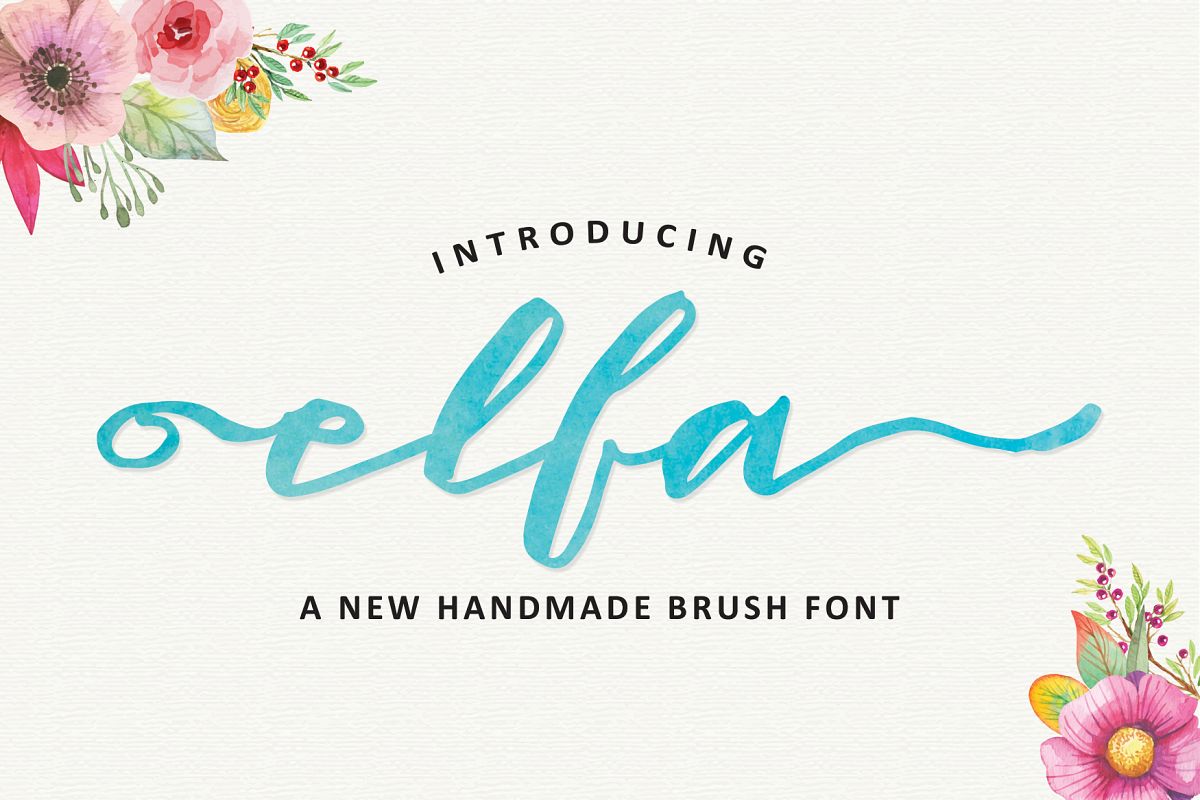
Elfa Brush
Elfa Brush.
Indtroducing..
Elfa Brush is the handmade font style dancing and then live trace to have Grungy brush and unique forms of calligraphy, the writing style is very natural and simple.
This font come with 411 glyph and will be an update to the next depending on your needs ...